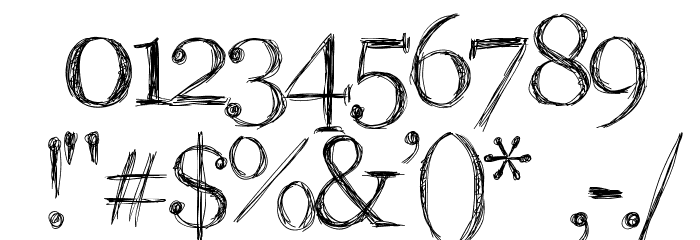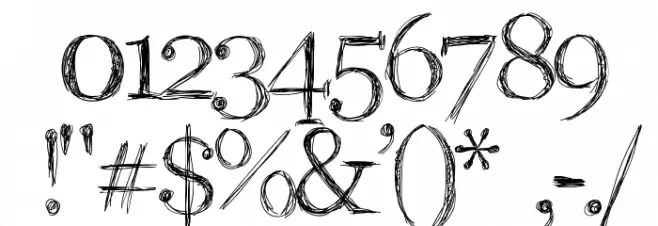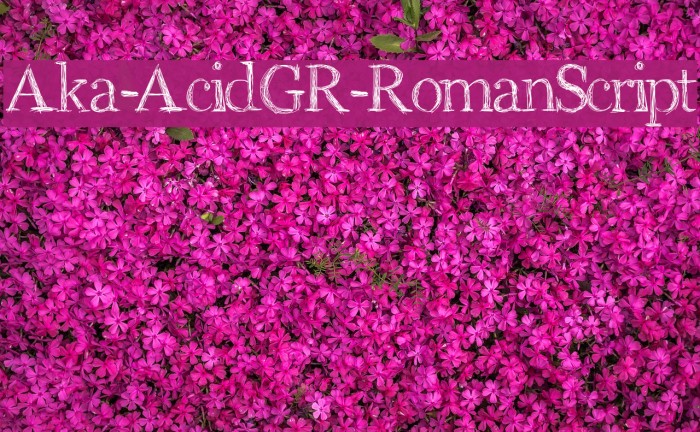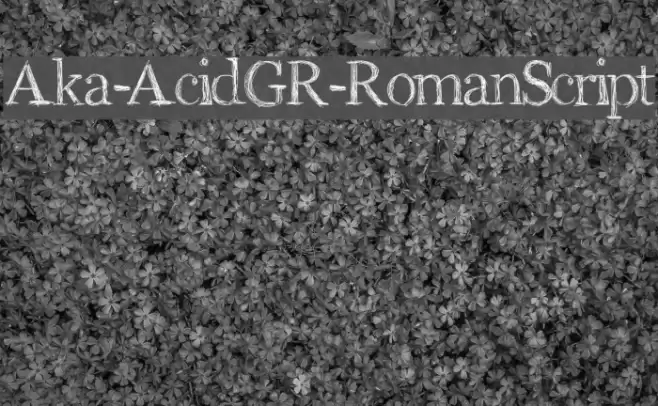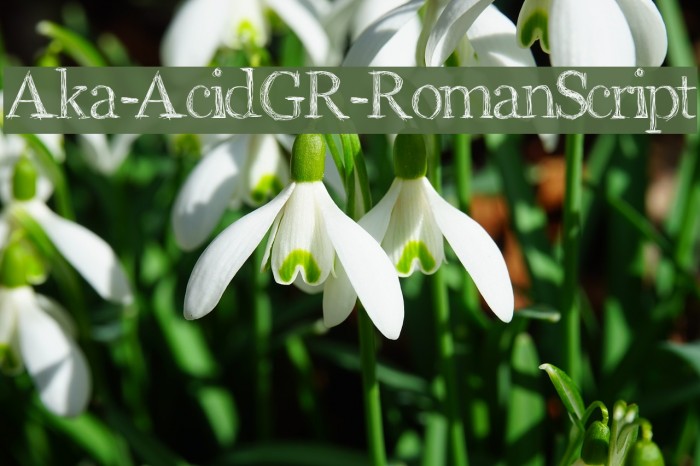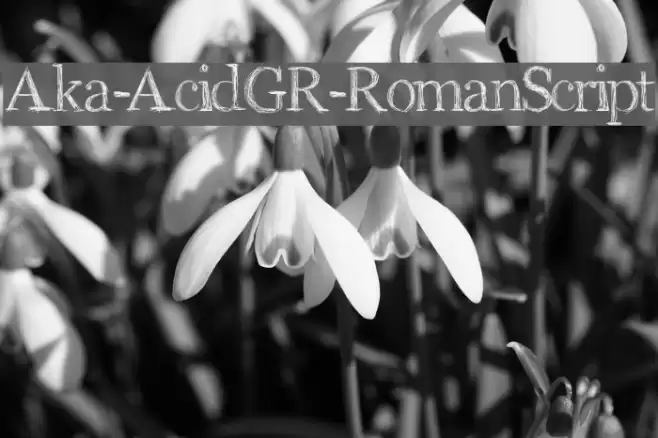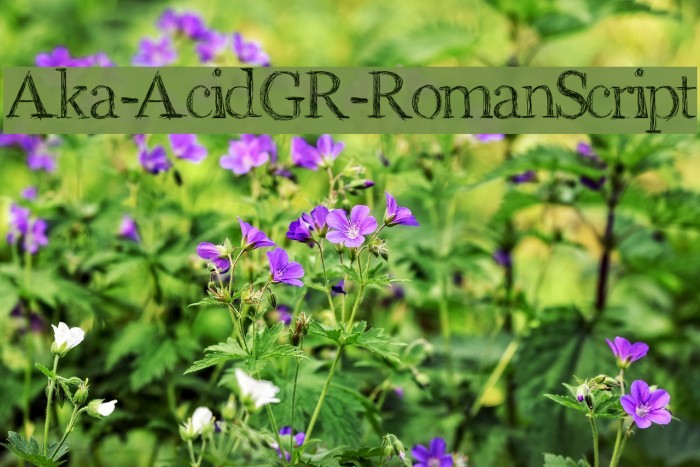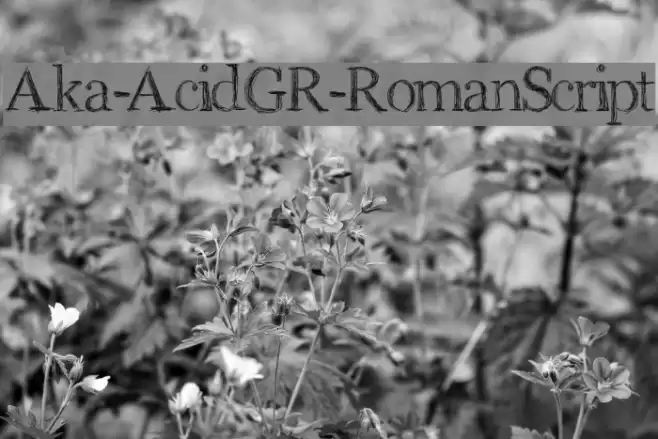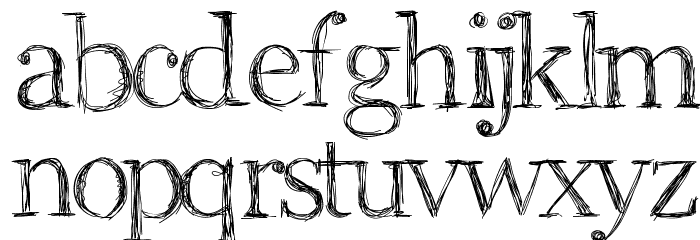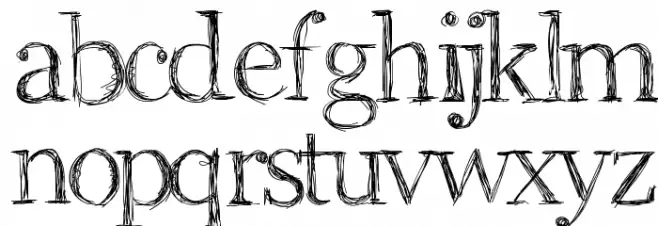
Aka-AcidGR-RomanScript Font
Aka-AcidGR-RomanScript Description
This font features a unique, hand-drawn style with a sketch-like appearance. The characters are crafted with irregular, textured strokes that give a sense of movement and energy. Each letter has a distinct, artistic flair, making it stand out with its rough, edgy lines. The uppercase and lowercase letters maintain a consistent style, while the numbers and special characters are equally expressive, adding to the font's overall dynamic feel. The font's design is both playful and bold, making it suitable for creative projects that require a touch of individuality and artistic expression.
| Overall Style | Artistic, Edgy, Playful |
| Use Case | Headlines, Logos, Artistic Projects |
| Proposed Projects | Ideal for creative projects such as posters, album covers, artistic branding, and unique invitations. |